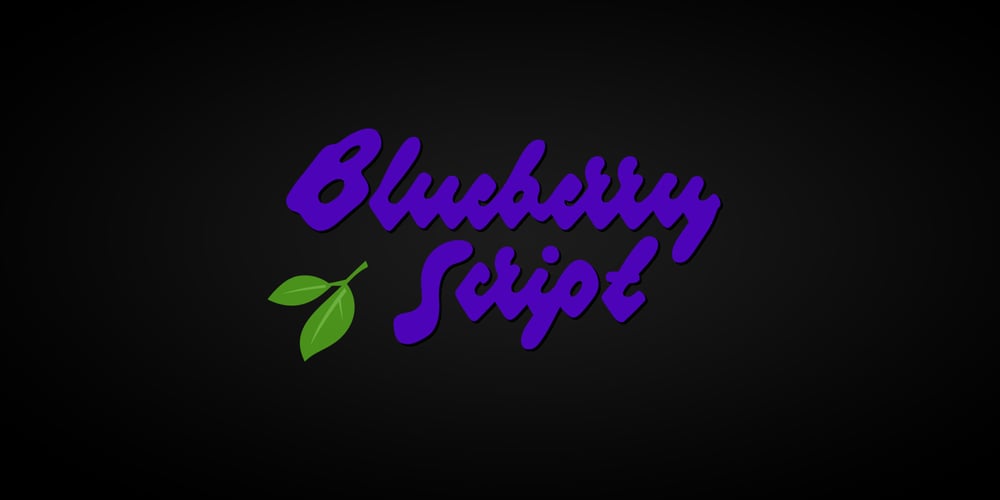
Blueberry Script Font Family was designed by Måns Grebäck, Noah Kinard and published by Mans Greback. Blueberry Script contains 1 styles and family package options. Blueberry Script is a bold and characteristic script typeface. It supports hundred of Latin languages, and has several ligatures to maximize the letters’ flow. The font is designed and created by Noah Kinard and Måns Grebäck. Also check out its sister fonts: Raspberry Script and Strawberry Script.